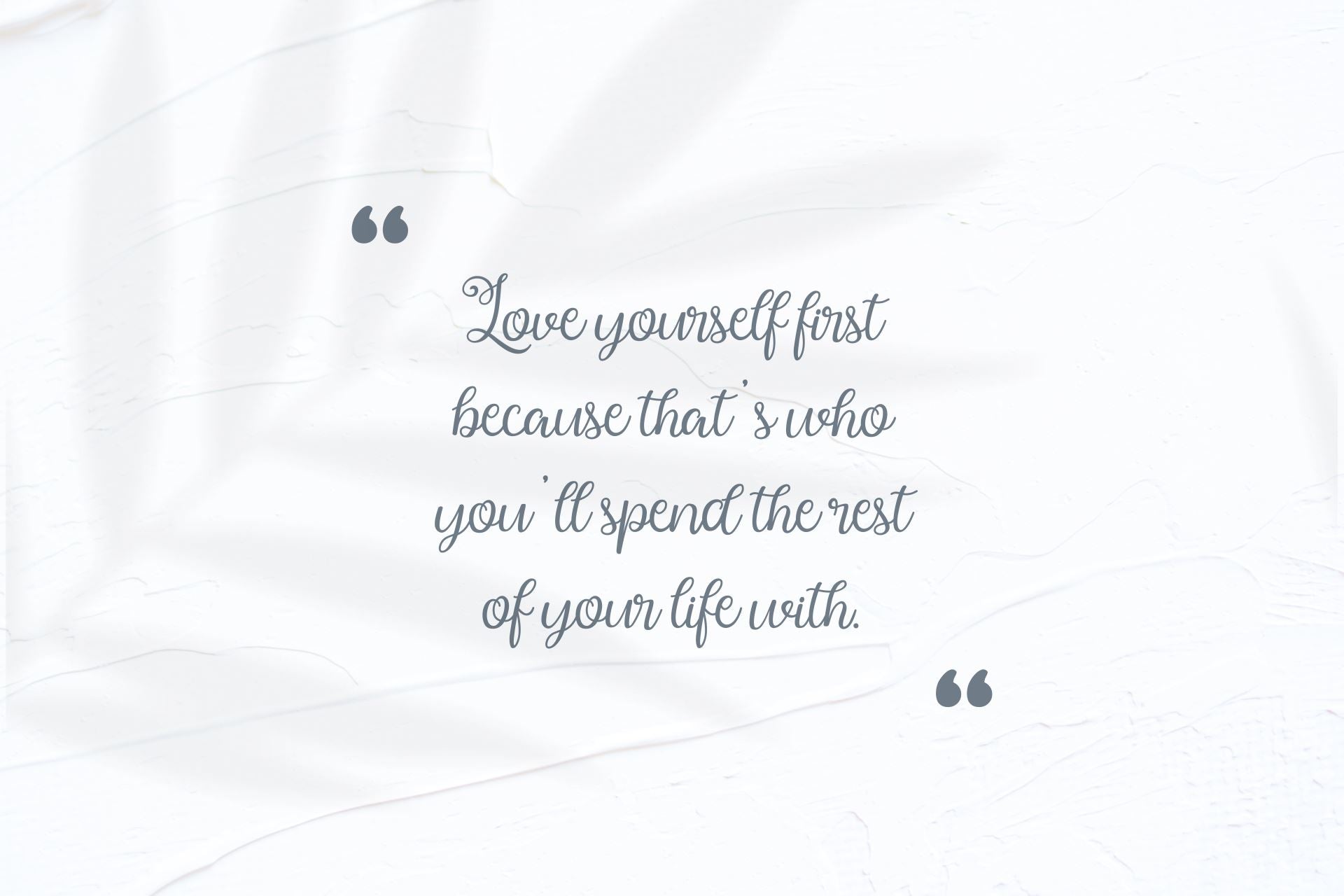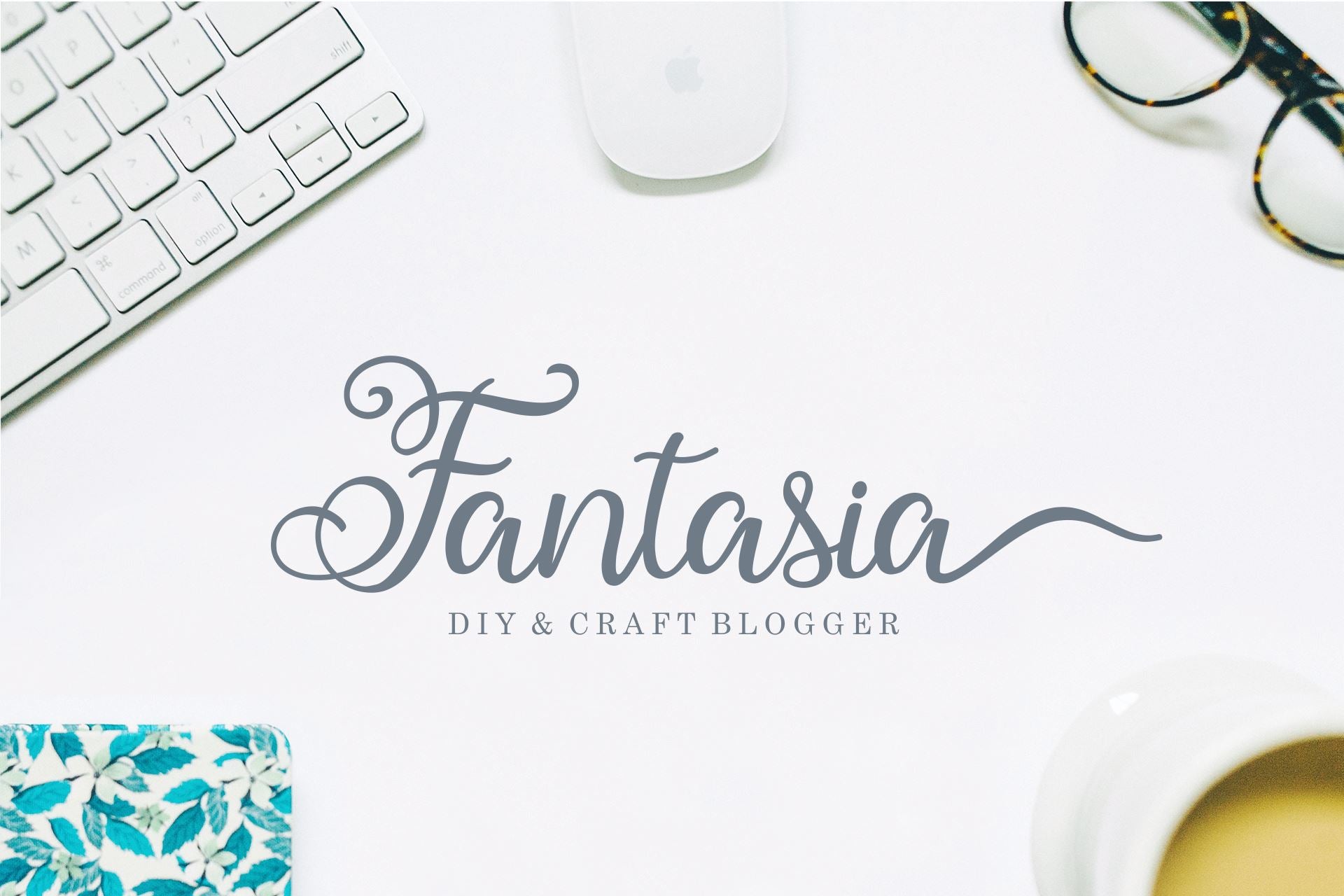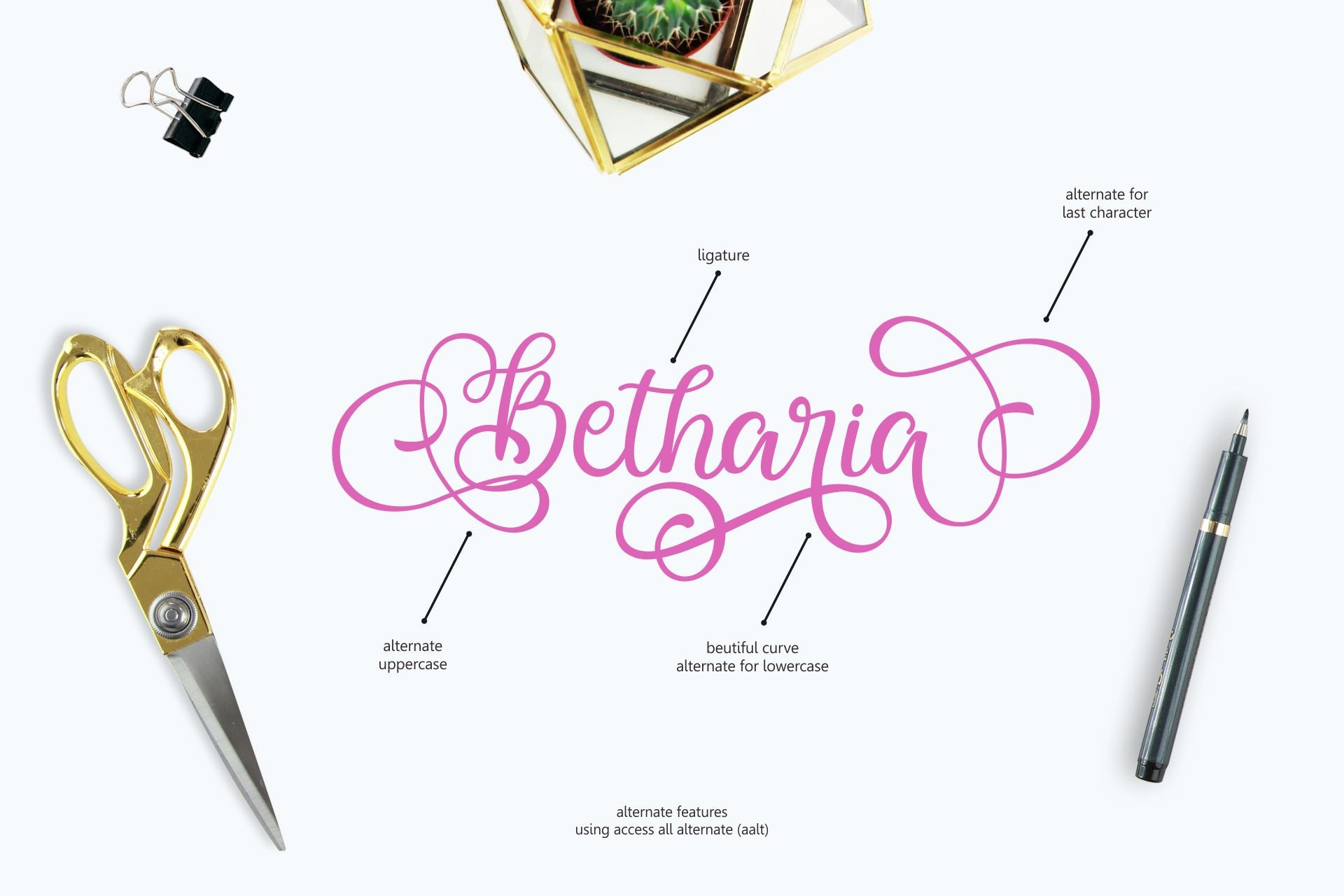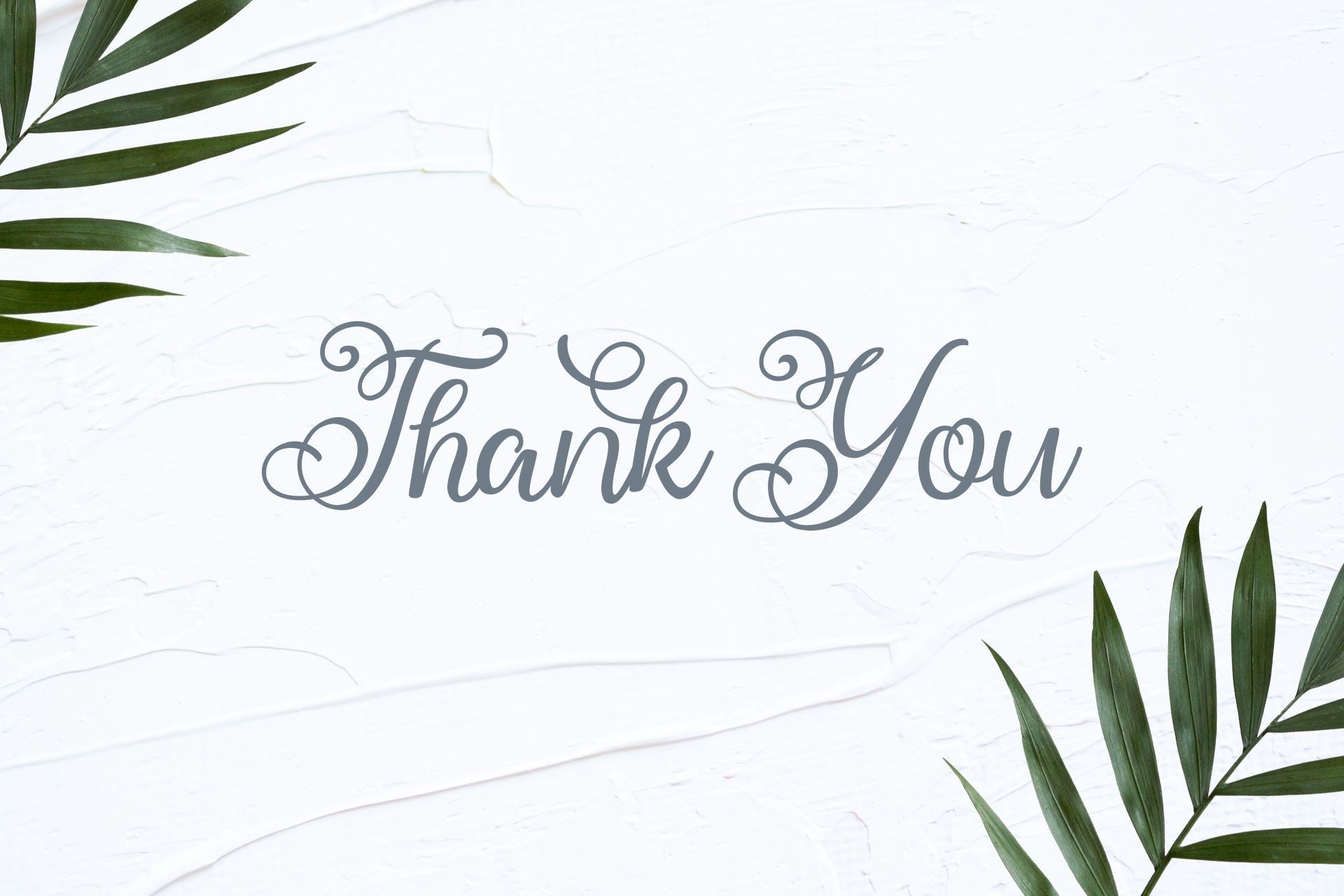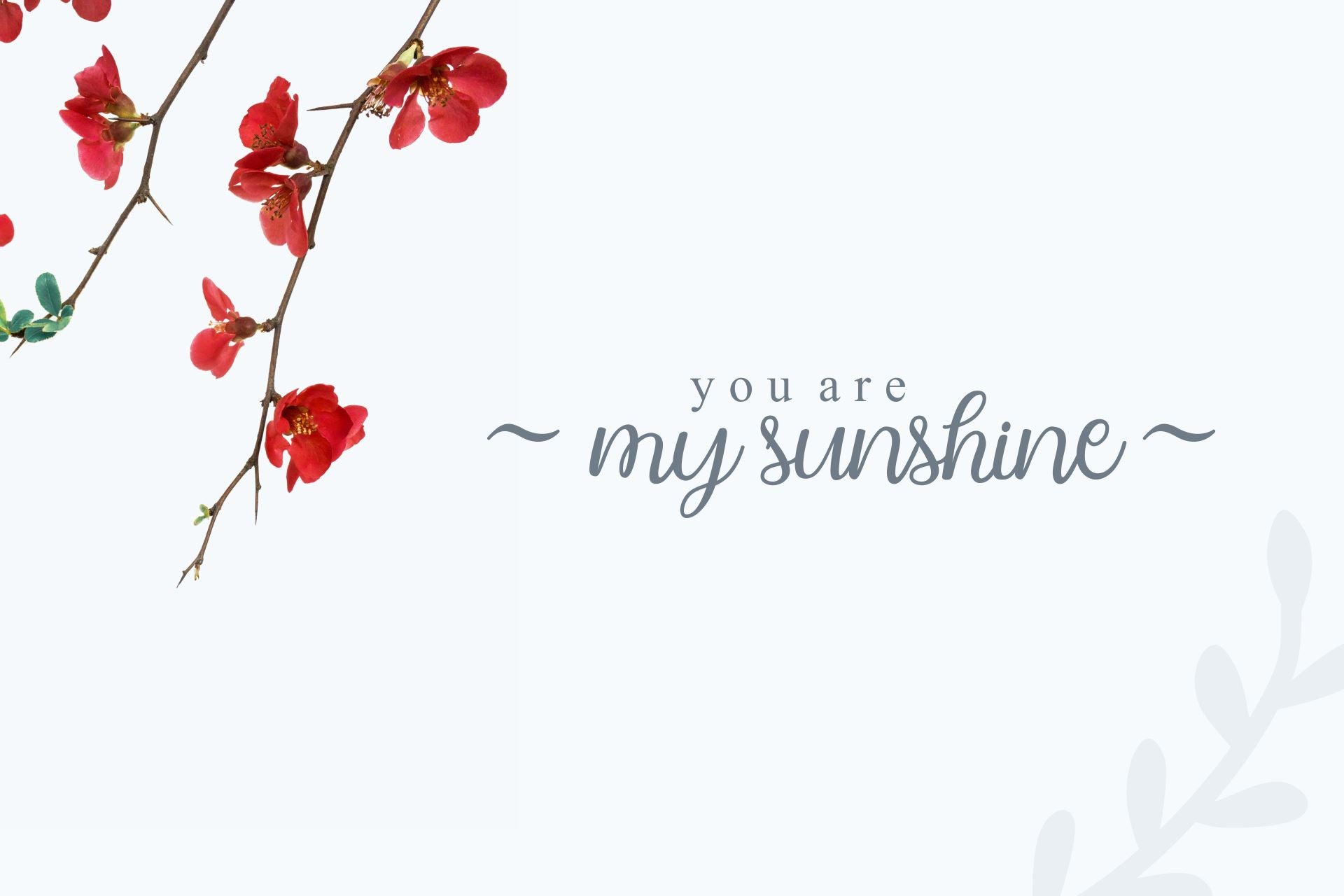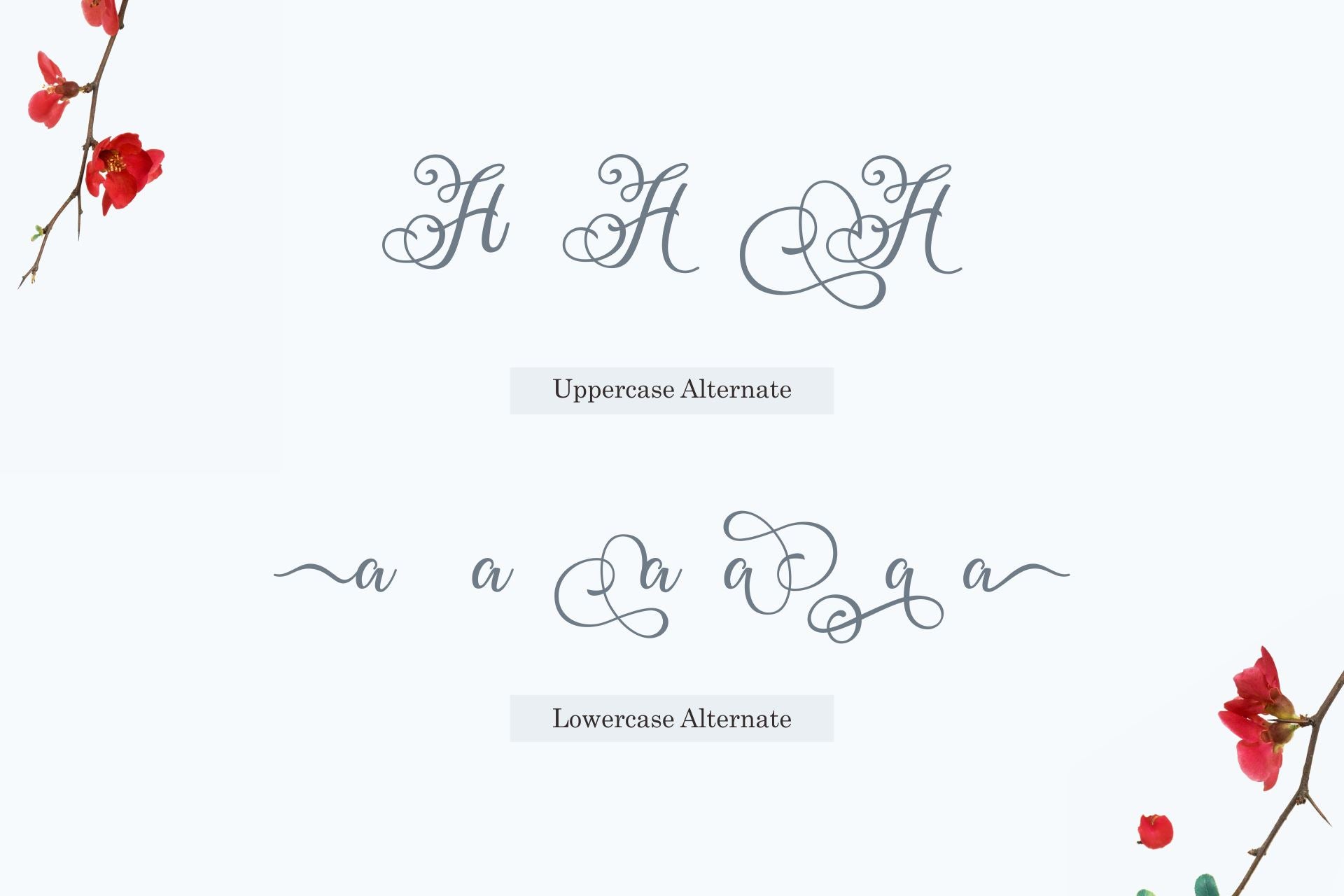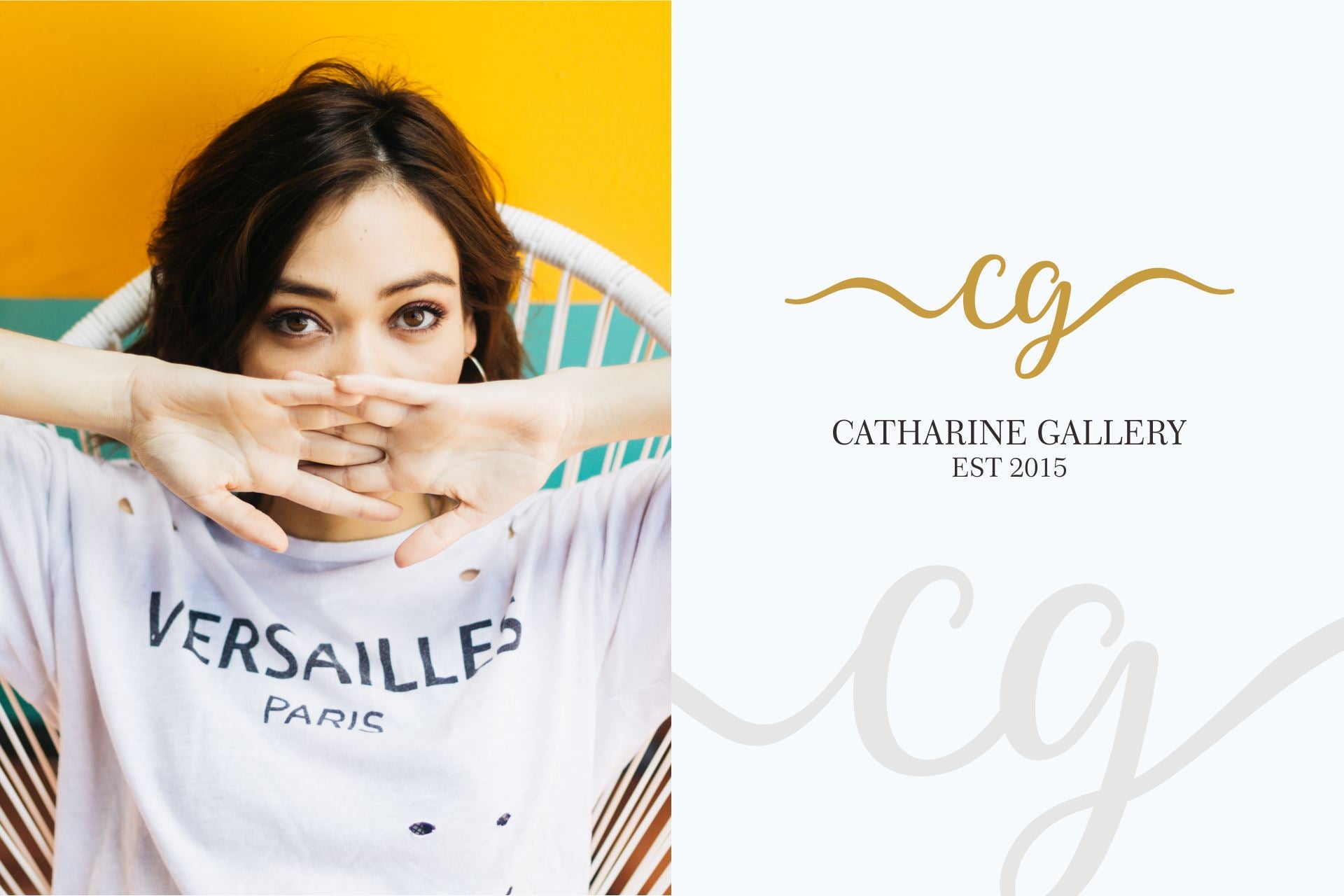
Ballita Script is a beautiful modern calligraphy font. It comes with many alternates that give the font an increased versatility. 2 Font ( Standard & Swash ) Many Various Alternate PUA Encoded